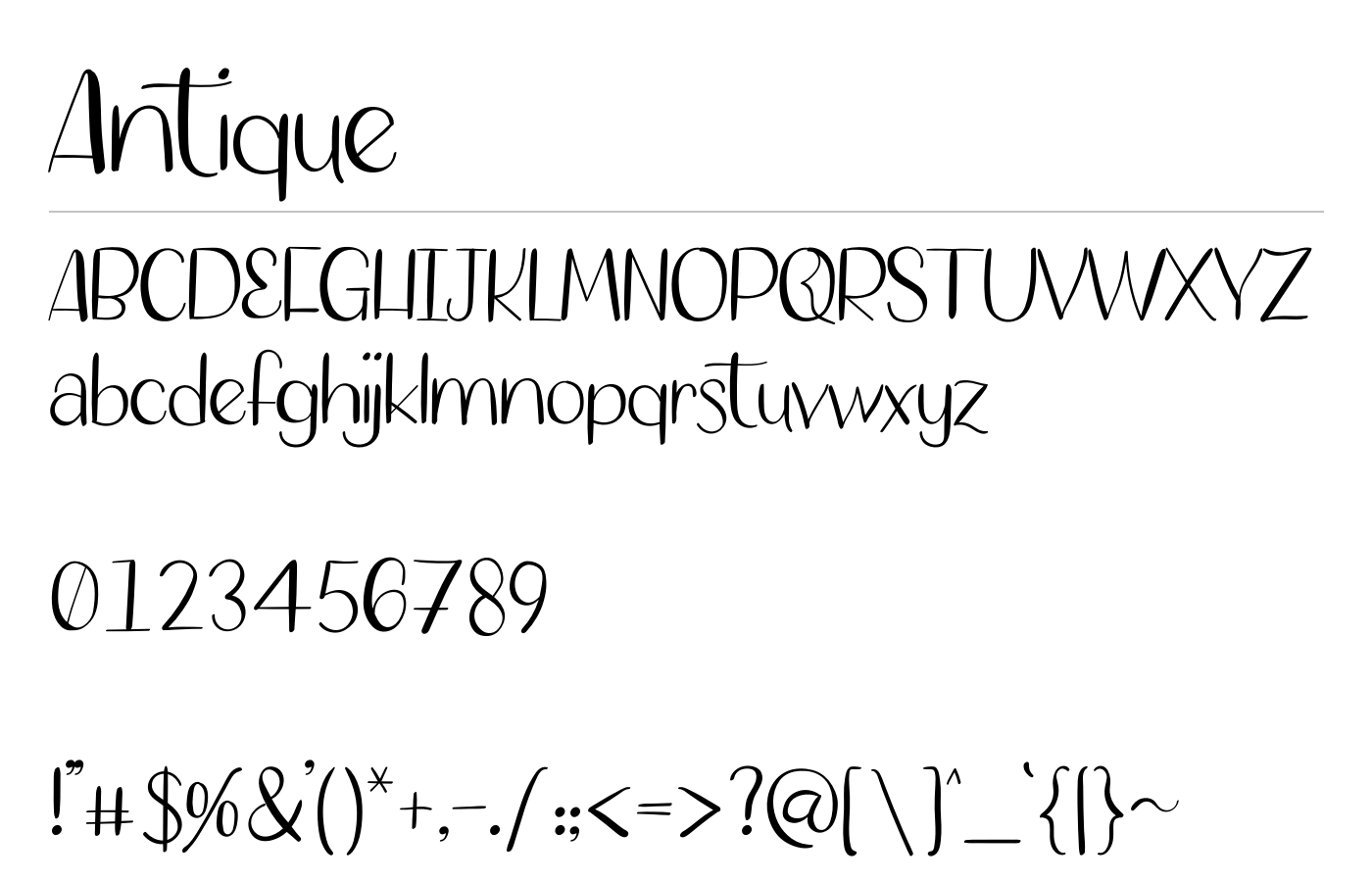
Antique Font is a charming, hand-drawn sans serif with an elegant yet playful personality. Its tall, narrow letterforms combined with light strokes and whimsical details give it a friendly, approachable feel, making it ideal for creative and casual branding, invitations, and headlines that seek a unique, artistic touch. This font works well where a personal, handcrafted style is desired, adding character without sacrificing readability.
Antique Font
About Antique Font
| Font family | Antique Font |
| Designer | Luthfi Fadhillah |